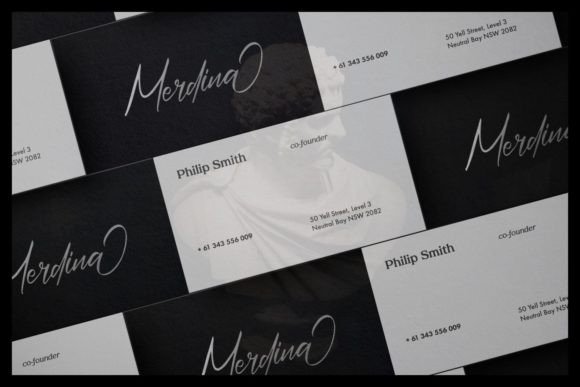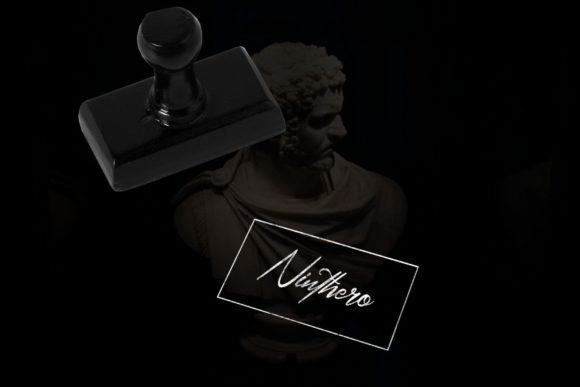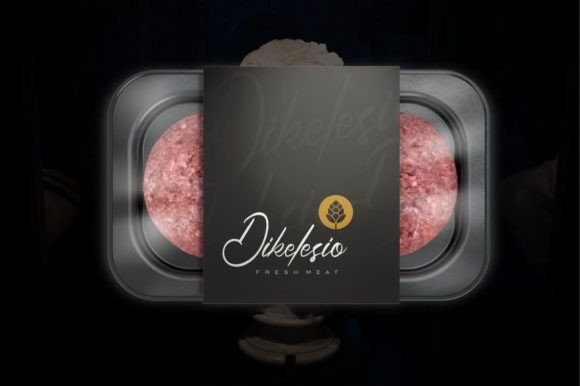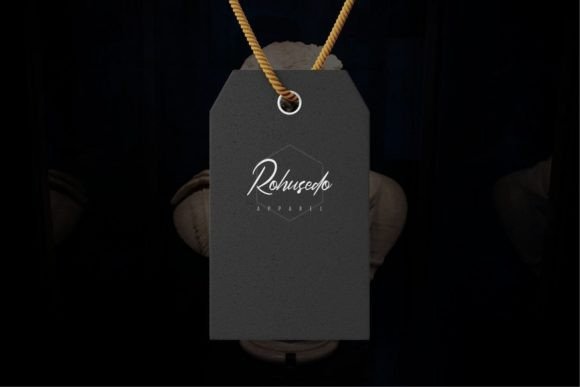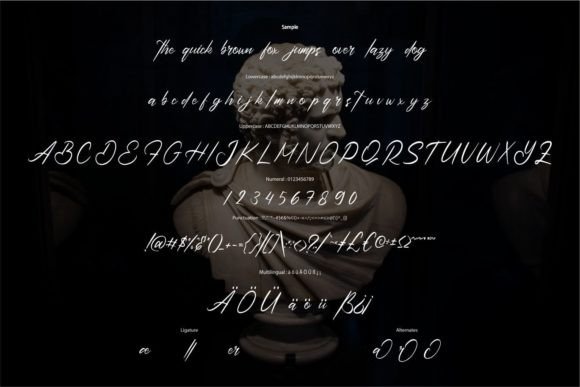
Asitader Font
About Asitader Font
“Asitader” is a font that epitomizes elegance with its contemporary script style, drawing inspiration from timeless classic calligraphy. Its balanced and varied design gives it a sophisticated yet approachable atmosphere, making it an excellent choice to enhance the beauty of your projects. Whether you’re working on branding, invitations, packaging, signage, or any other creative endeavor, “Asitader” elevates the visual appeal of your designs with its impeccable form and graceful aesthetic.
The elegant and refined qualities of “Asitader” make it perfect for designs that aim to convey a sense of sophistication and class. Its well-crafted letterforms and smooth curves create a harmonious visual experience, making it ideal for projects that demand a touch of timeless elegance. Whether used in logos, headings, or wedding invitations, this font adds a touch of luxury and refinement, ensuring that your designs exude a sense of high-quality craftsmanship.
In branding, “Asitader” lends a distinctive and elegant identity to the business. Its contemporary script style adds a touch of professionalism and creativity, making it suitable for upscale brands and businesses that want to convey a sense of exclusivity. Whether used in logos, business cards, or promotional materials, this font enhances the brand’s visual identity, leaving a lasting impression on clients and customers.
For invitations and event stationery, “Asitader” adds a touch of romance and sophistication. Its flowing script and impeccable form create a sense of grace and charm, making it perfect for wedding invitations, formal events, or gala invitations. Whether used for invitation cards, menus, or place cards, this font enhances the overall elegance of the event, making it a memorable and enchanting experience for attendees.
In packaging and product design, “Asitader” enhances the overall aesthetics of products. Its elegant script style adds a touch of luxury to labels and packaging, making products appear more premium and desirable. Whether used for cosmetics, perfumes, or gourmet products, this font elevates the brand image, making the products stand out on the shelves and appeal to discerning consumers.
The availability of glyphs and ligatures, thanks to the PUA encoding, enhances the font’s versatility. Designers can easily access a wide range of alternate characters and decorative elements, allowing for creative freedom and customization. These additional glyphs and ligatures enable you to create unique and personalized designs, adding a bespoke touch to your projects and enhancing their individuality.
In summary, “Asitader” is not just a font; it’s a statement of elegance and sophistication. Its contemporary script style, impeccable form, and PUA encoding make it a valuable asset for various creative projects. By incorporating “Asitader” into your designs, you infuse them with a sense of timeless beauty and refinement, ensuring that your projects are not just visually appealing but also exude an aura of understated luxury and class.